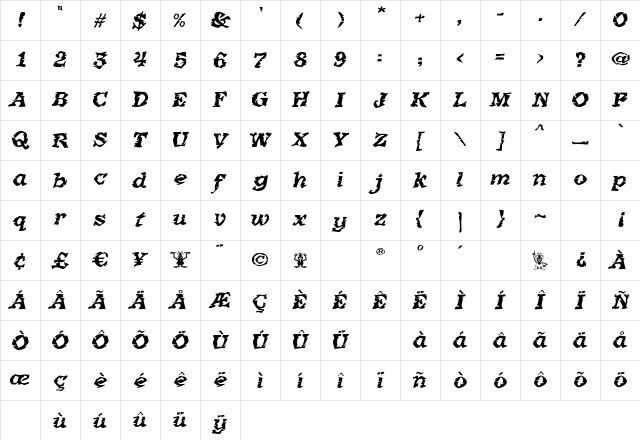
JollyRoger Regular
Design Context for JollyRoger
JollyRoger is a composed and adaptable typeface that performs quietly and consistently across a wide range of design contexts.